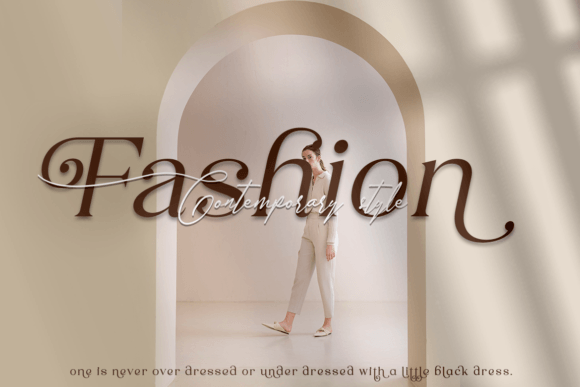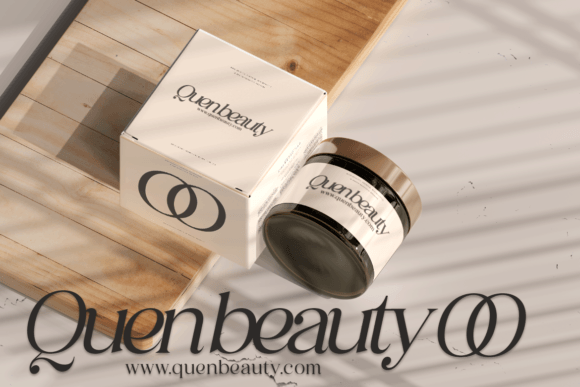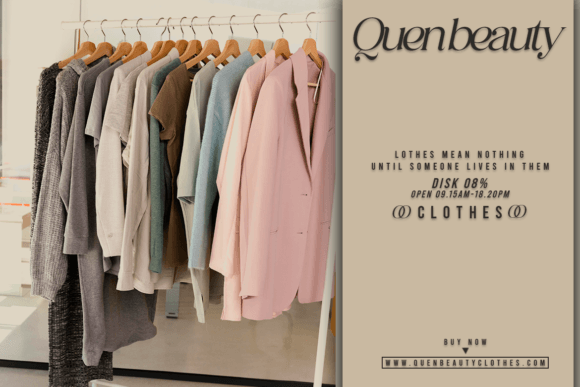
Introduction to Merilia Font
Have you ever stared at a beautiful design and thought, ‘I wish I could create something like that’? For designers, that’s a familiar feeling. But what if you had the perfect font to elevate your creative project? Meet the Merilia Font, a modern serif font that’s sure to make your branding materials, advertisements, and packaging stand out.
Whether you’re working on a high-end skincare product or a fashion magazine, the Merilia Font is the perfect design resource to complement your vision. Its elegant lines and sophisticated feel make it an ideal choice for designers who want to create a premium look without breaking the bank. And the best part? The Merilia Font is available for free download, so you can get started on your next creative project right away.
With its transparent background and high-quality design, the Merilia Font is a valuable asset for any designer. So why settle for a generic font when you can have a beautiful, modern serif font that will take your design to the next level?
Key Features of Merilia Font
- High-quality design: This font features a unique, elegant design with a transparent background, perfect for adding a touch of sophistication to any project.
- Resolution-independent: With a resolution of 300 DPI, Merilia Font is suitable for both print and digital applications, including high-resolution graphics and web design.
- Unique characteristics: The font’s distinctive style and elegant lines make it an ideal choice for creative projects, such as logo design, typography, and branding.
- Font size and size range: Merilia Font comes in a range of font sizes, from 12 to 72 points, allowing designers to customize their text to suit their specific needs.
- Perfect for creative projects: Merilia Font is a versatile design resource that can be used in a variety of creative projects, including graphic design, web design, and publishing.
Honest Review: Merilia Font
As a designer, I’m always on the lookout for high-quality design resources to elevate my creative projects. Recently, I came across the Merilia Font, and I’m excited to share my honest review.
- The font features a transparent background, allowing for seamless integration into various design elements.
- The font’s clean and modern design makes it perfect for a wide range of creative projects, from digital marketing materials to print designs.
- High-quality vector files ensure crisp and clear typography, even when scaled up or down.
- The font’s character set is somewhat limited, which may not be ideal for designers working on complex projects.
- Some users may find the font’s modern design too minimalist for certain creative projects.
Overall, I’m impressed with the Merilia Font’s potential for elevating my design projects. While it may have some limitations, its high-quality design and free download option make it a valuable resource for designers. I’d definitely recommend it for creative projects requiring a modern and clean typography.
For the best results, use Merilia Font on a high-quality design project with a transparent background. This will allow the font to stand out and add a touch of elegance to your design. Additionally, consider using Merilia Font in conjunction with other design resources to create a unique and eye-catching look.
Merilia Font is ideal for creative projects, such as logos, business cards, and marketing materials. It is also a great choice for designing invitations, menus, and other promotional materials. With its high-quality design and transparent background, Merilia Font is sure to make a lasting impression.
Yes, the Merilia Font is designed to be used with a transparent background. This makes it ideal for use in creative projects that require a clean and minimalist design aesthetic.
Yes, the Merilia Font is designed to be high-quality and suitable for high-resolution printing. It has been carefully crafted to ensure that it looks great at a range of sizes and resolutions, making it perfect for use in business cards, brochures, and other print materials.